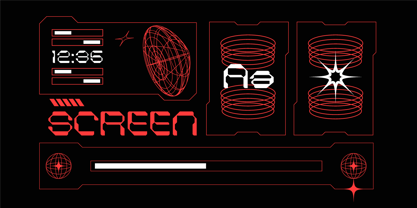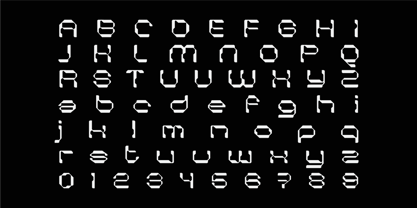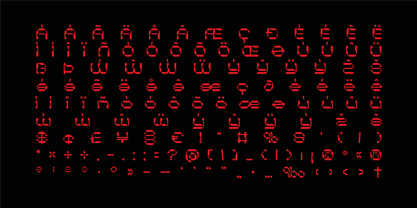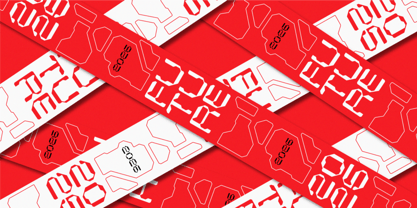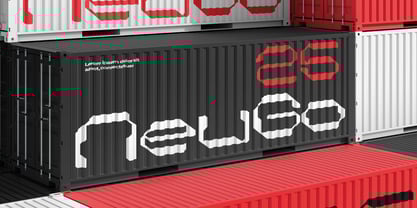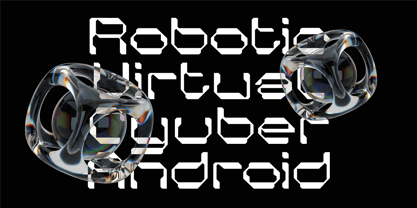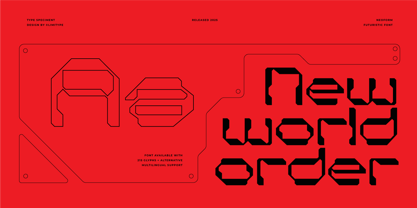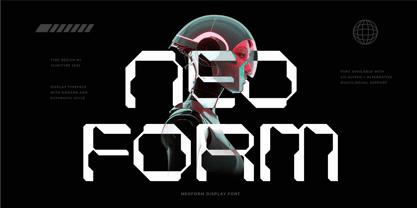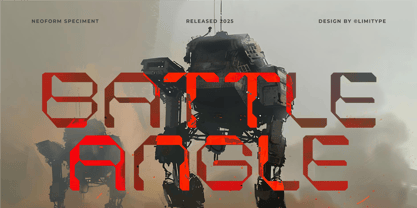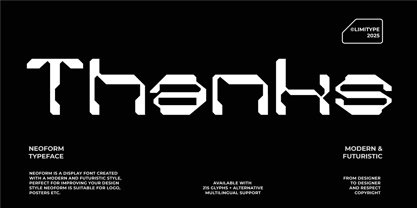
Neoform
by limitype
The Neoform Font Family was designed by Muhammad Muammar, Furqan Sudirman and published by limitype. Neoform contains 1 styles. More about this family
Neoform Futuristic is a unique font with letterforms resembling circuit patterns and electronic chips. Each curve and line is distinctive, precise, and modern. It conveys a highly contemporary impression, making it suitable for technology, sci-fi themes, or any design that aims to present a sophisticated, innovative, and futuristic look.